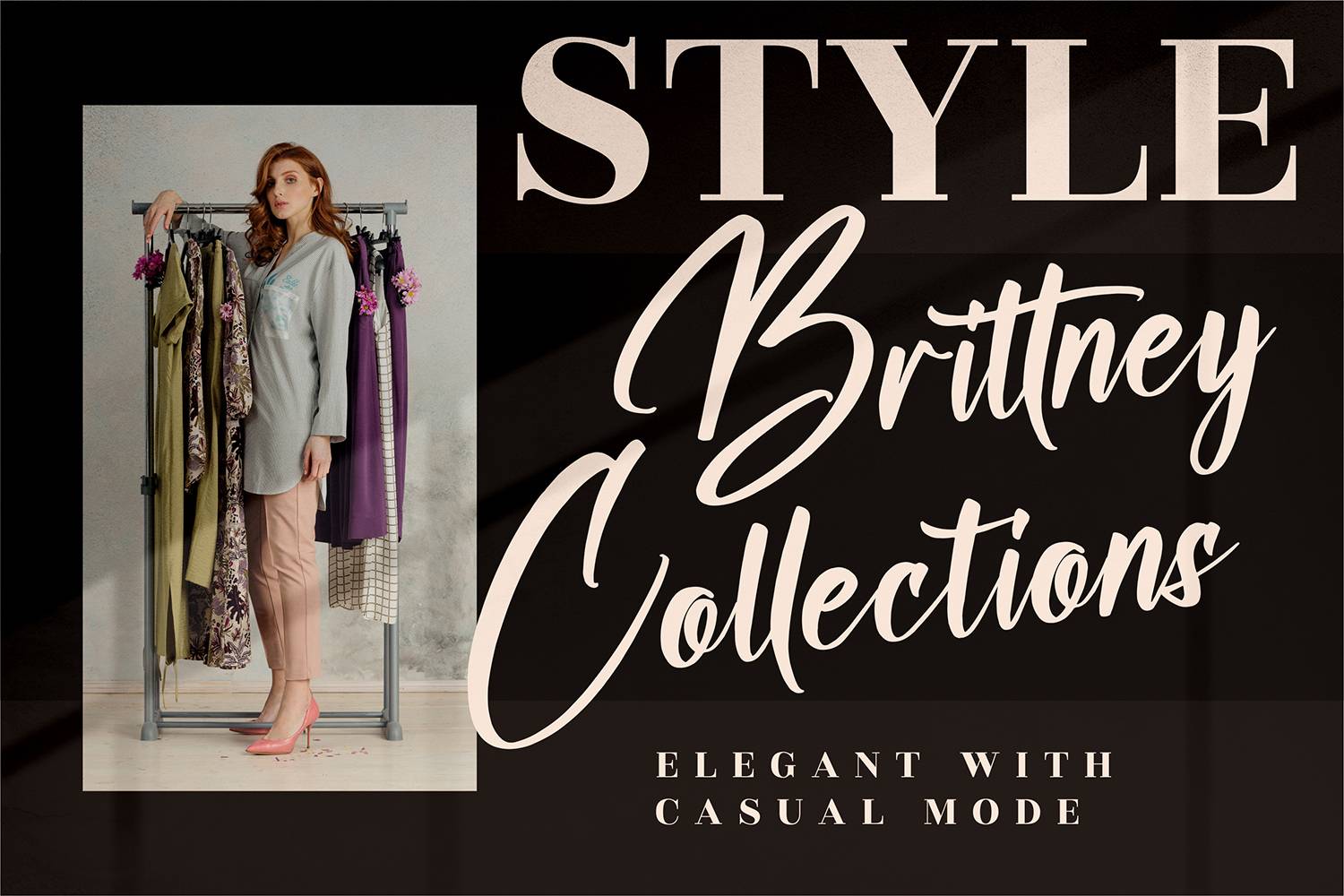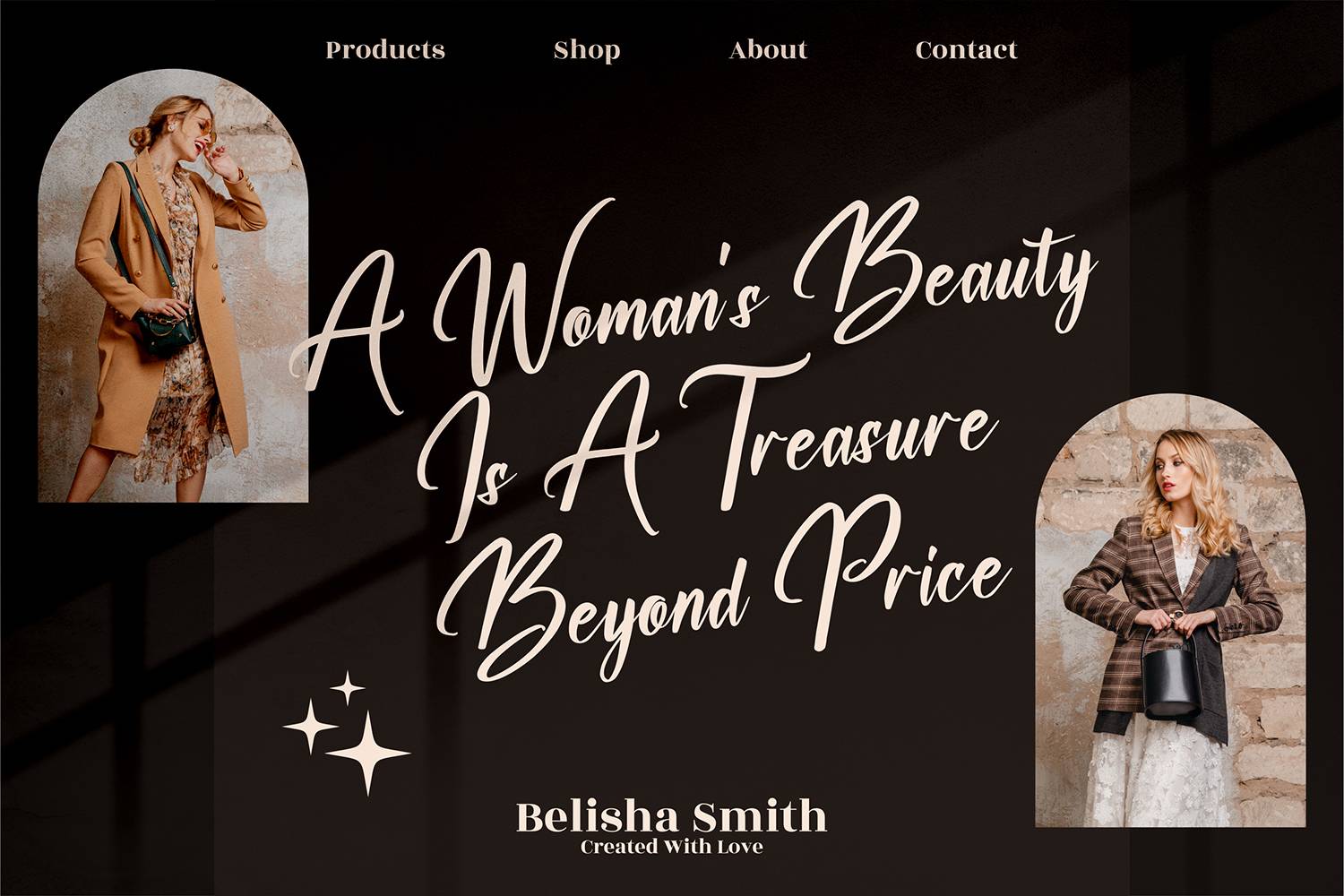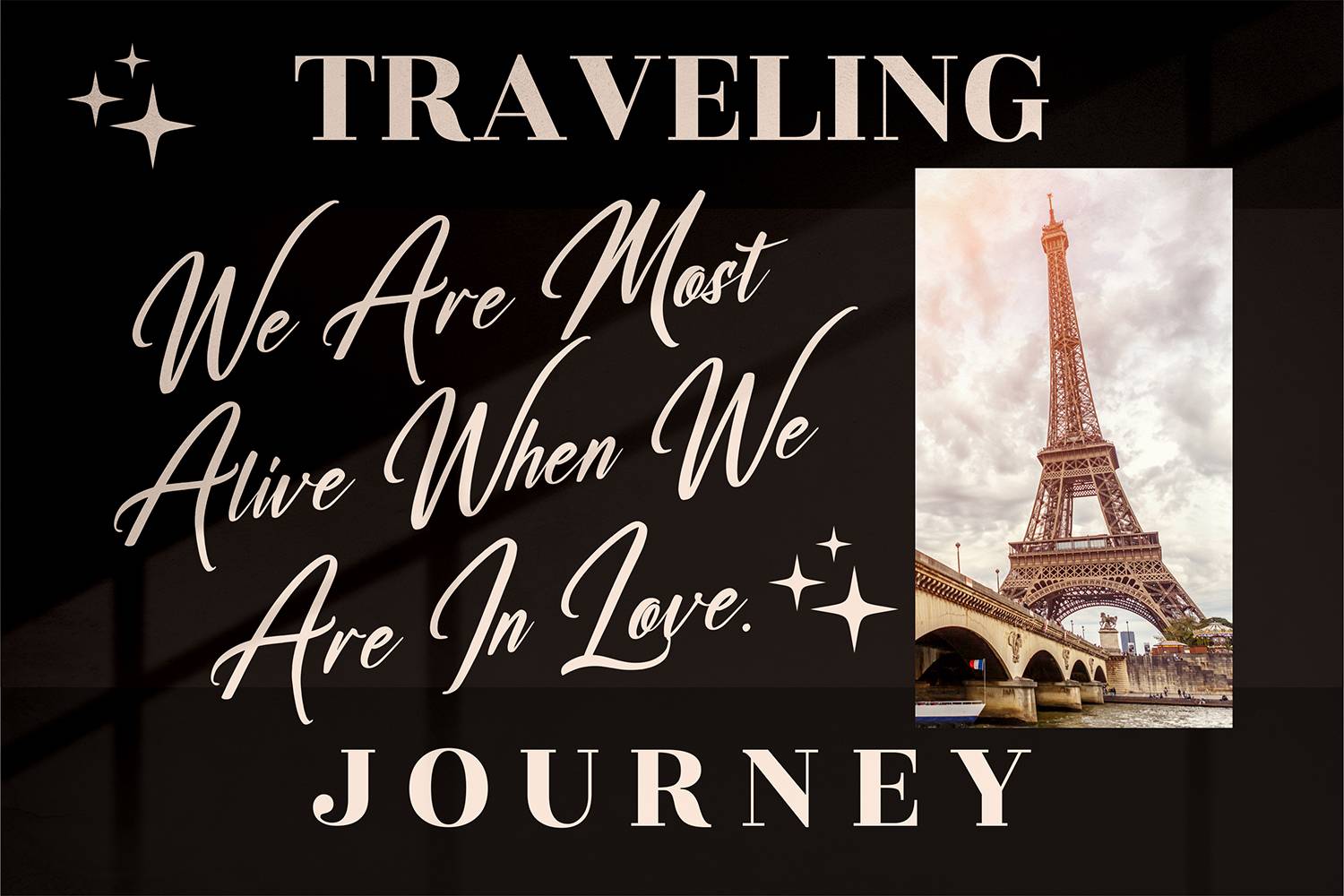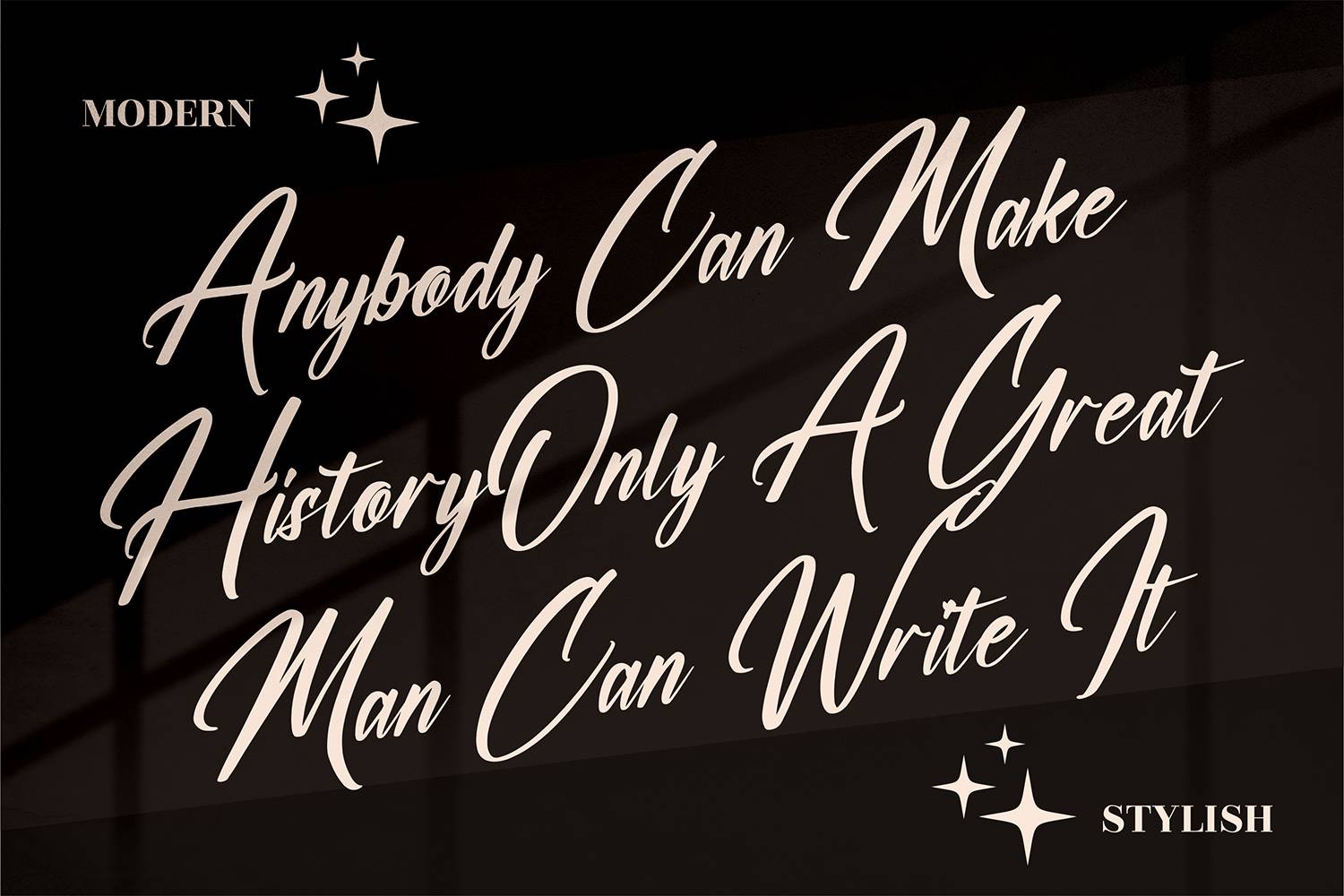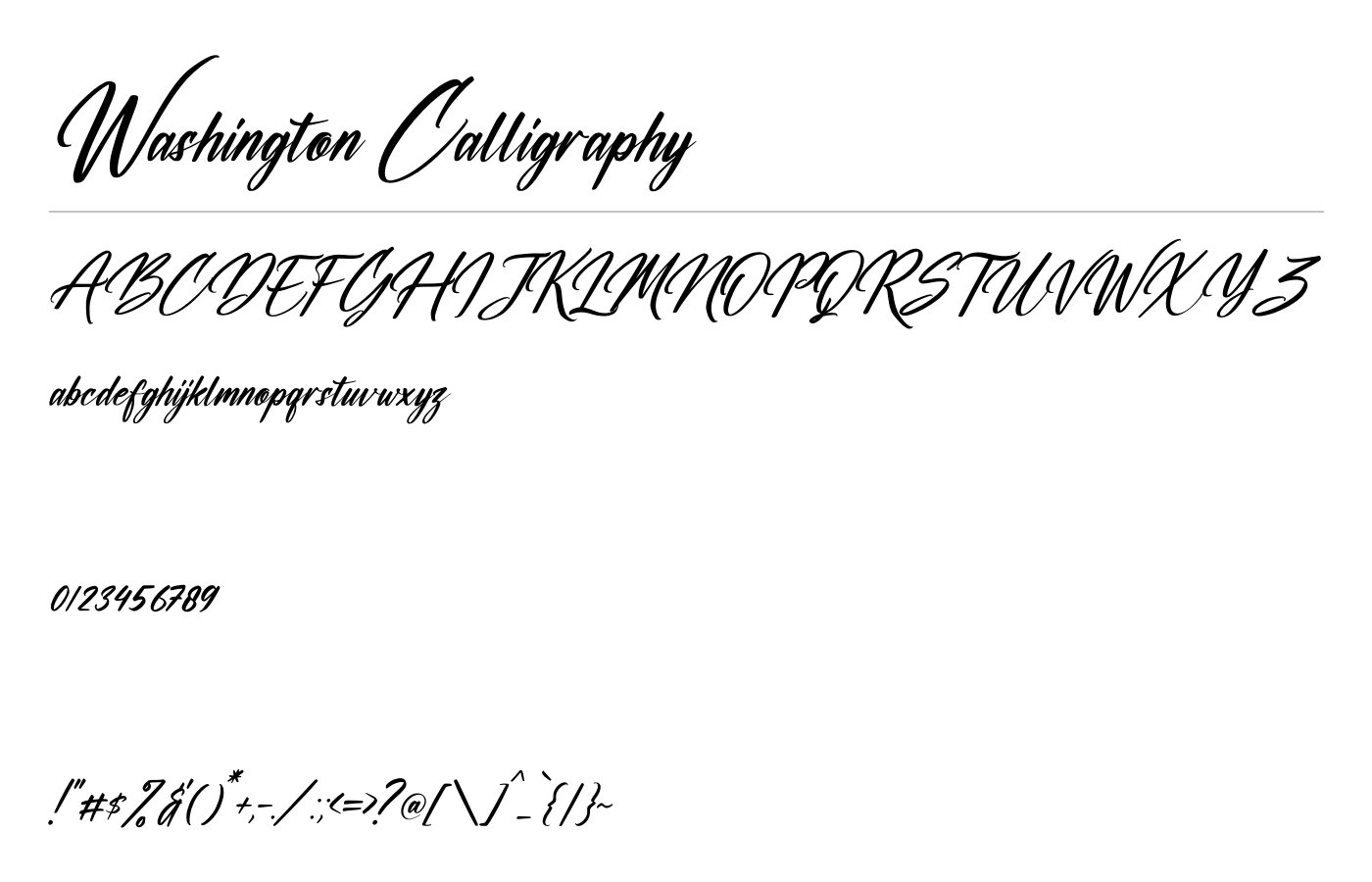
Washington Font is an elegant script typeface that mimics stylish modern calligraphy with its smooth, flowing strokes and slightly varied line weight. Its delicate yet confident character shapes give it a personal and sophisticated feel, making it ideal for wedding invitations, branding, and upscale editorial work where a touch of refinement and grace is desired.
Washington Font
About Washington Font